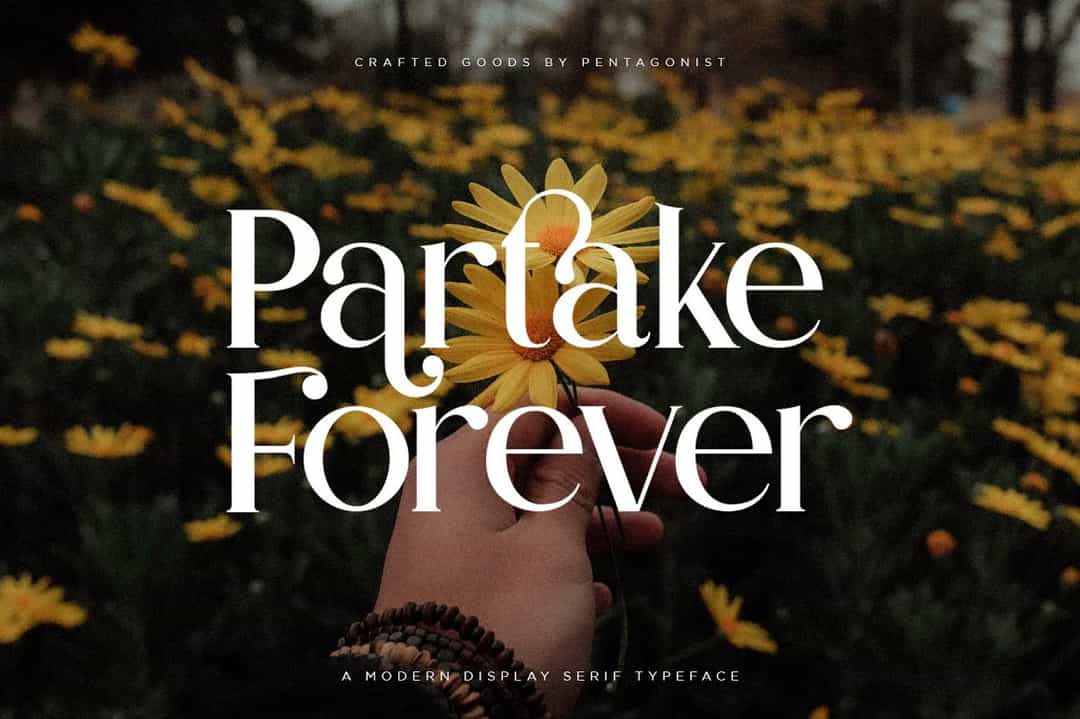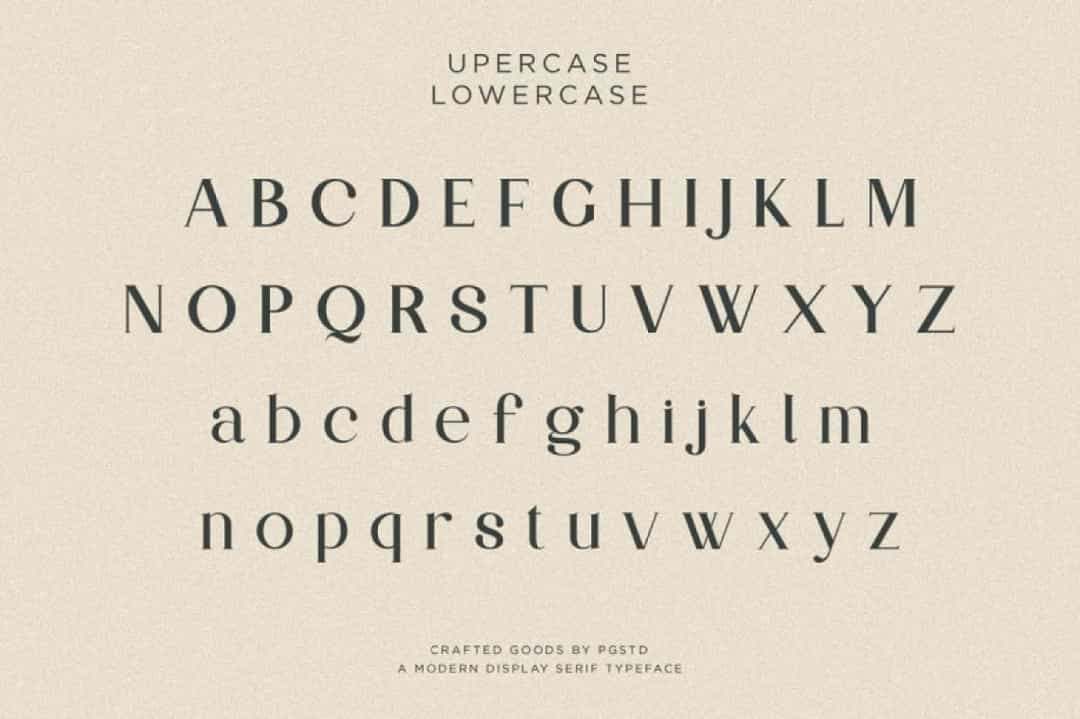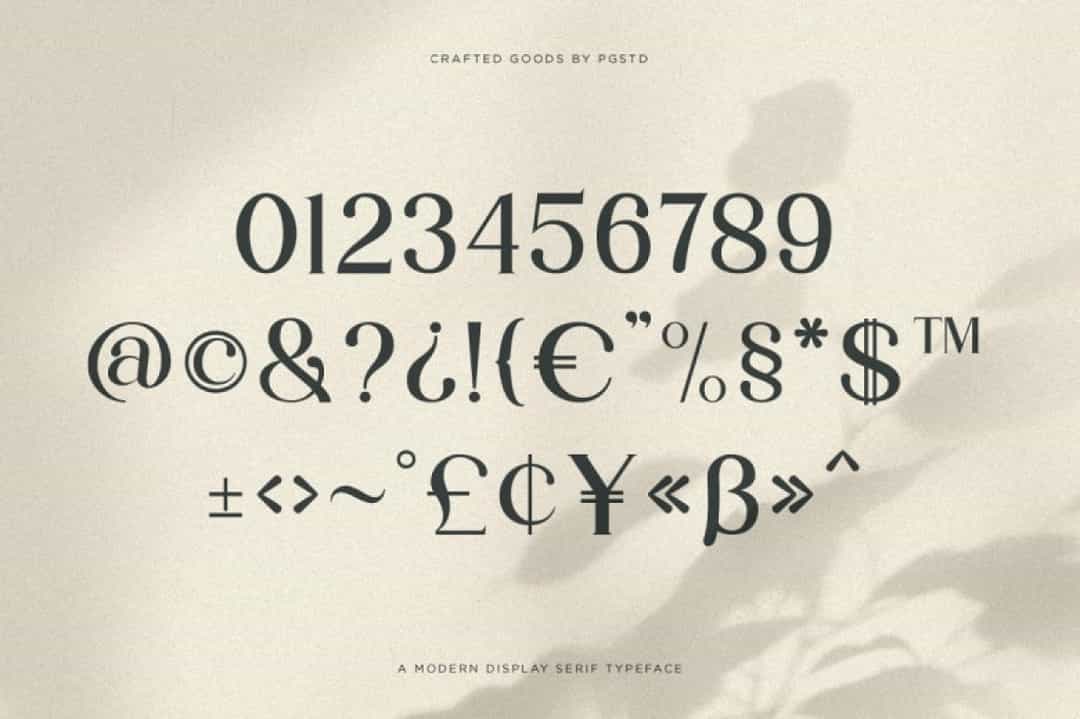
Partake is an elegant serif font. Perfect for use in logo design, movie/book cover artwork, fashion magazine articles and clothing advertisements as well as lettering quotations; Partake’s timeless appearance adds sophistication and luxury to any design project. It provides a sleek finish to any piece.